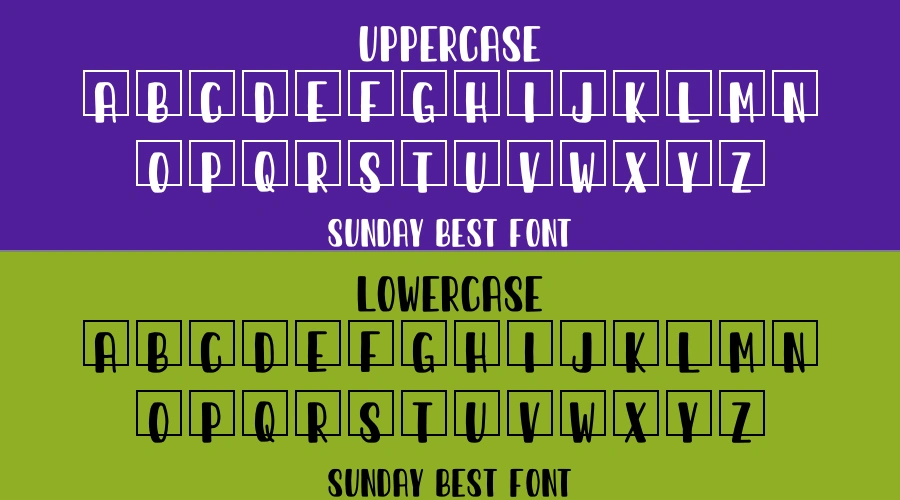
About Sunday Best Font
Sunday Best Font stands out for its distinctive combination of dramatic weight and professional standards. Ideal for medical texts, it provides the distinctiveness and professional authority that professional projects demand. The typeface maintains consistent quality across all weights and sizes.
Key features include refined high x-height and practical brand signatures, enhancing typographic expression. In product names applications, Sunday Best Font demonstrates exceptional rendering. The bowl shape and artistic merit contribute to its distinctive character and professional appeal.